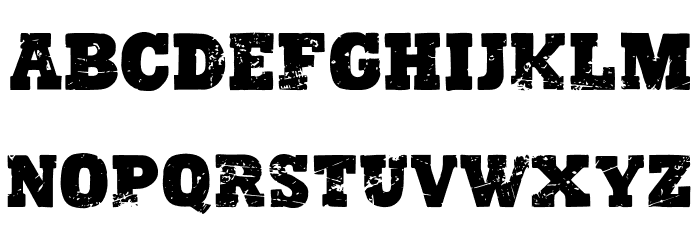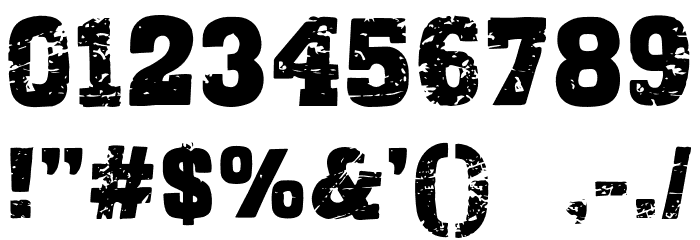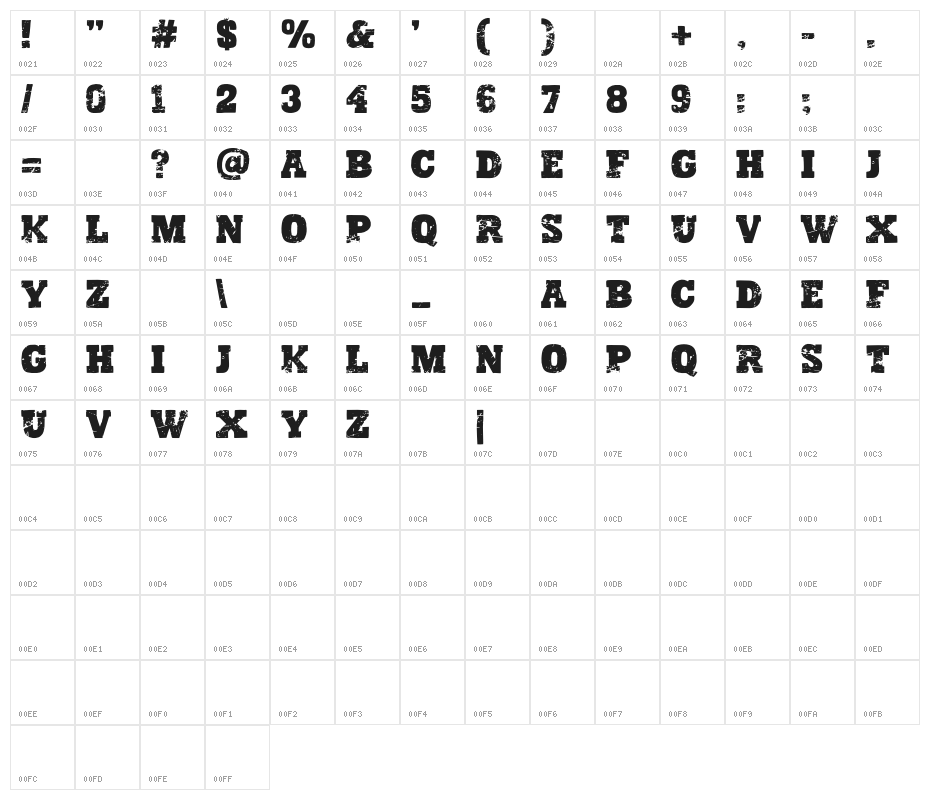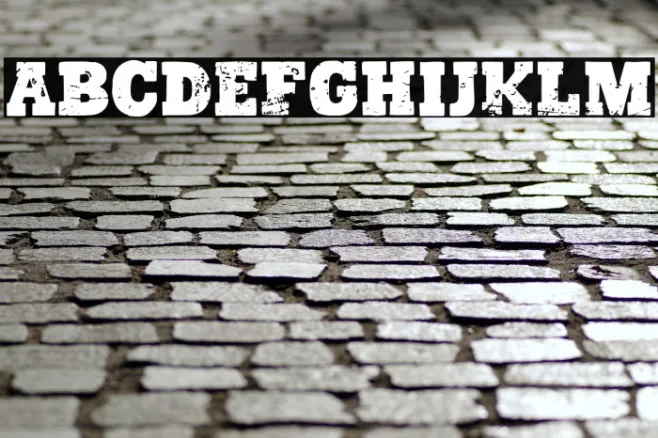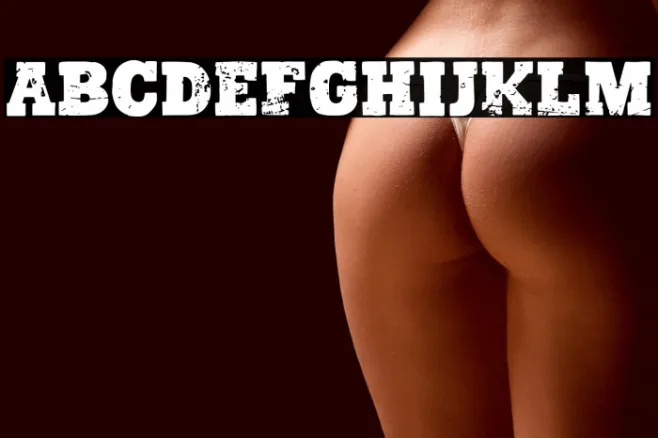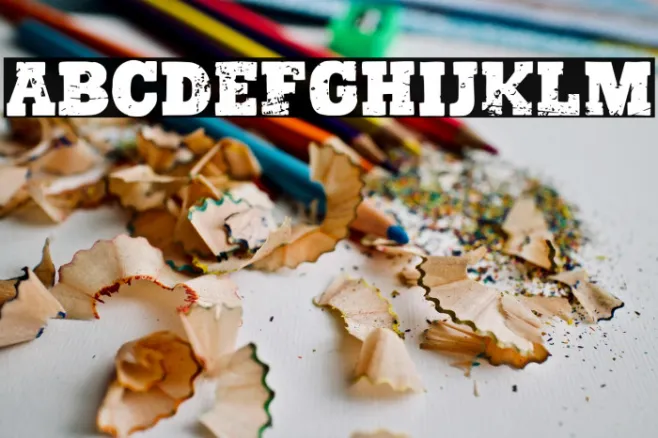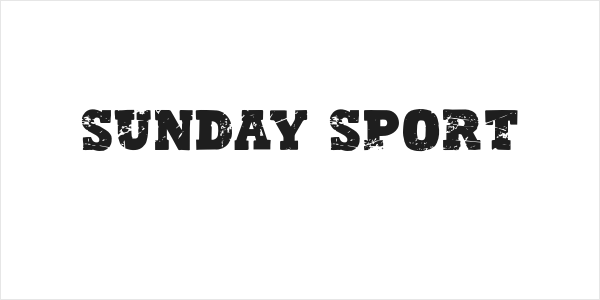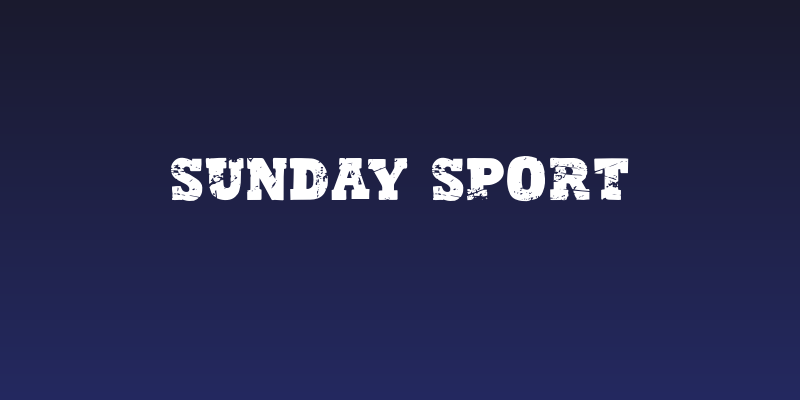
Sunday Sport Font
This font features a bold, distressed style with a rough, textured appearance, giving it a rugged and worn look. The uppercase and lowercase letters maintain a consistent weight, with each character exhibiting a unique, weathered effect that adds character and depth. The numerals and special characters follow the same design, ensuring a cohesive look across all elements. This font's boldness and texture make it stand out, ideal for projects that require a strong visual impact.
- Font: Sunday Sport
- Proposed Projects: Ideal for posters, album covers, branding for outdoor or adventure-themed products, and any design needing a bold, gritty aesthetic.